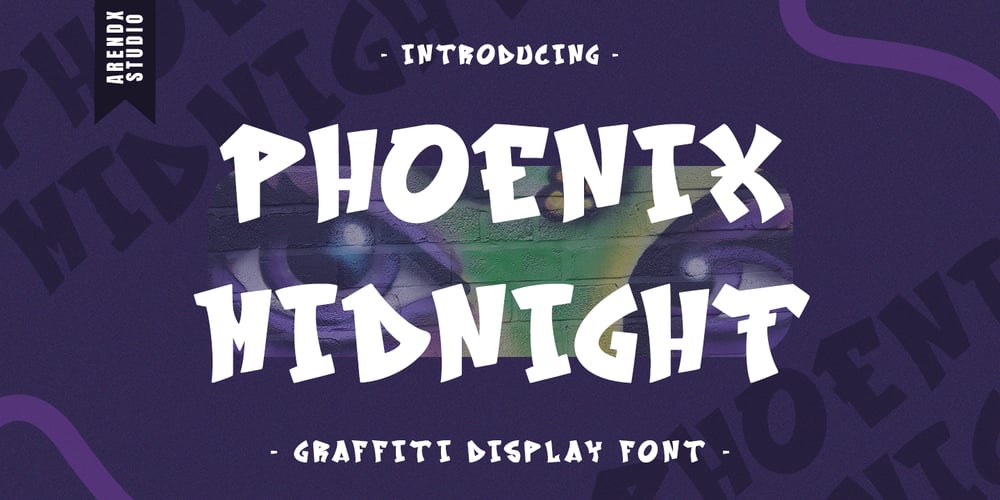
Phoenix Midnight
Phoenix Midnight font
Phoenix Midnight Font Family was designed by Asep Rendi and published by Arendxstudio. Phoenix Midnight contains 1 styles and family package options. Phoenix Midnight – Graffiti Display Font is a free style font that has the characteristics of street art that shows freedom and is filled with unique charactersFeatures : • Character Set A-Z • Numerals & Punctuations (OpenType Standard) • Accents (Multilingual characters) • Ligature • Alternate